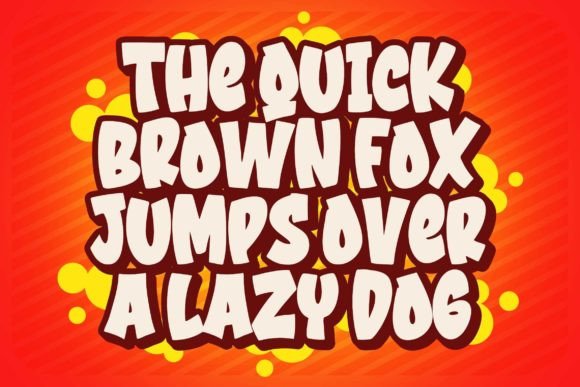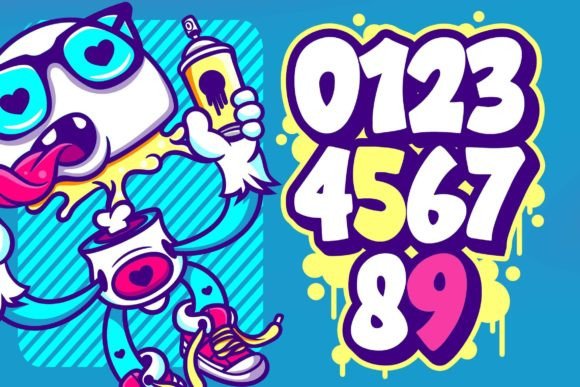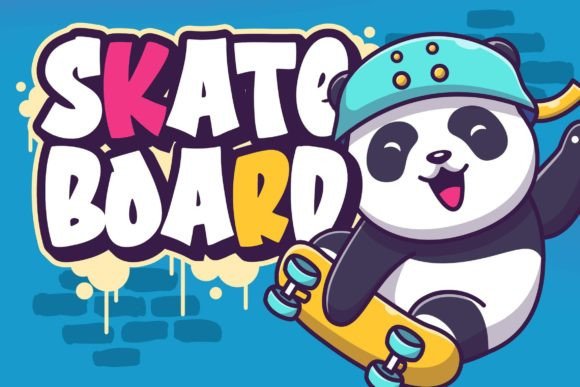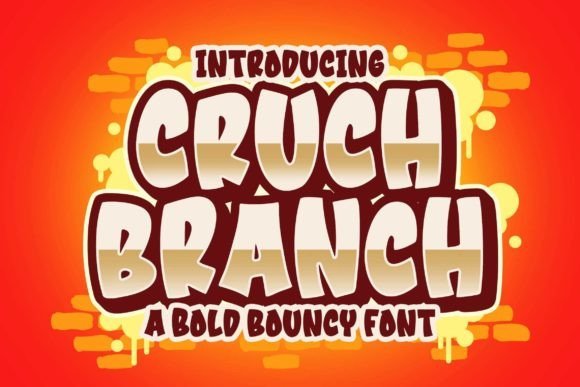
Introduction to Cruch Branch Font
Crunch Branch is a bold and bouncy display font perfect for book covers, children’s books, comics, posters, packaging, merchandise, logo design, and many more.
If you are looking for a comic/cartoon font to create something fun and outstanding, Crunch Branch is for you .